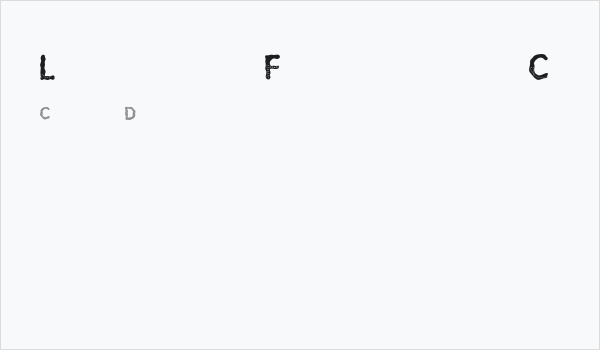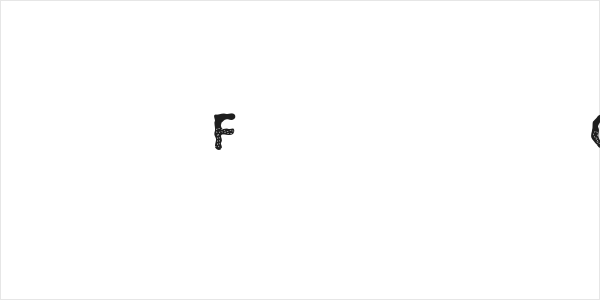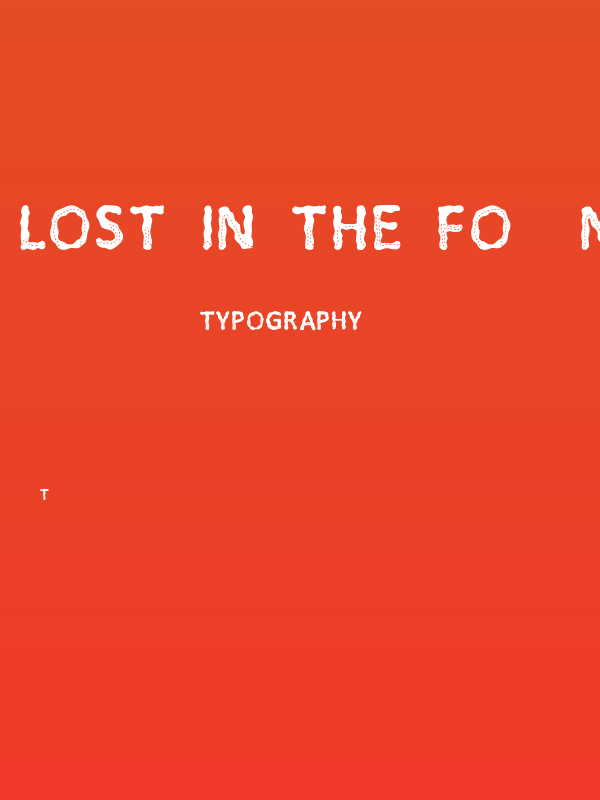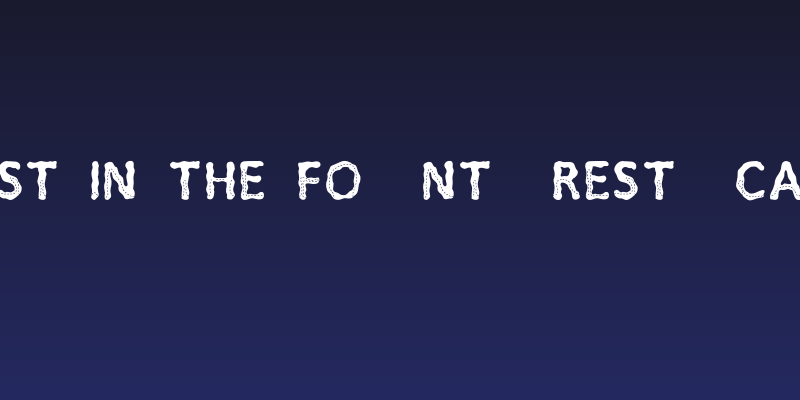
Lost in the Fo'nt'rest Caps Font
Lost in the Fo'nt'rest Caps Description
This font features a rugged, textured design that gives each letter a hand-crafted appearance. The uppercase letters have a bold presence with uneven edges, creating a sense of movement and energy. The texture within each character resembles a distressed or eroded surface, adding depth and visual interest. This style is reminiscent of vintage or rustic themes, making it suitable for projects that require a touch of authenticity and character. The font's unique style makes it stand out, ideal for creative and artistic applications.
| Proposed Projects | Ideal for branding, posters, album covers, and any project seeking a vintage or rustic aesthetic. |